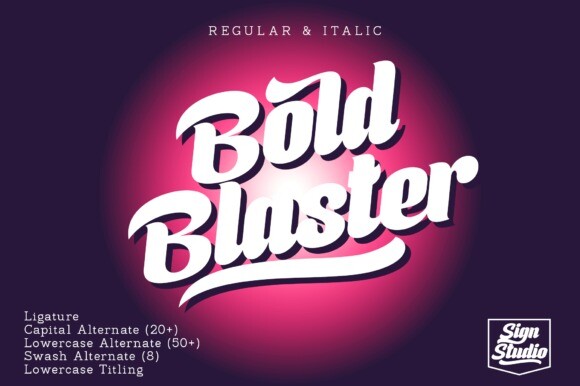
Boldblaster Font
Boldblaster is a gorgeous and retro styled display font. This font reads as strong, confident, and dynamic and can add tons of nostalgic character to your designs. Boldblaster is PUA encoded which means you can access all of the glyphs and swashes with ease!